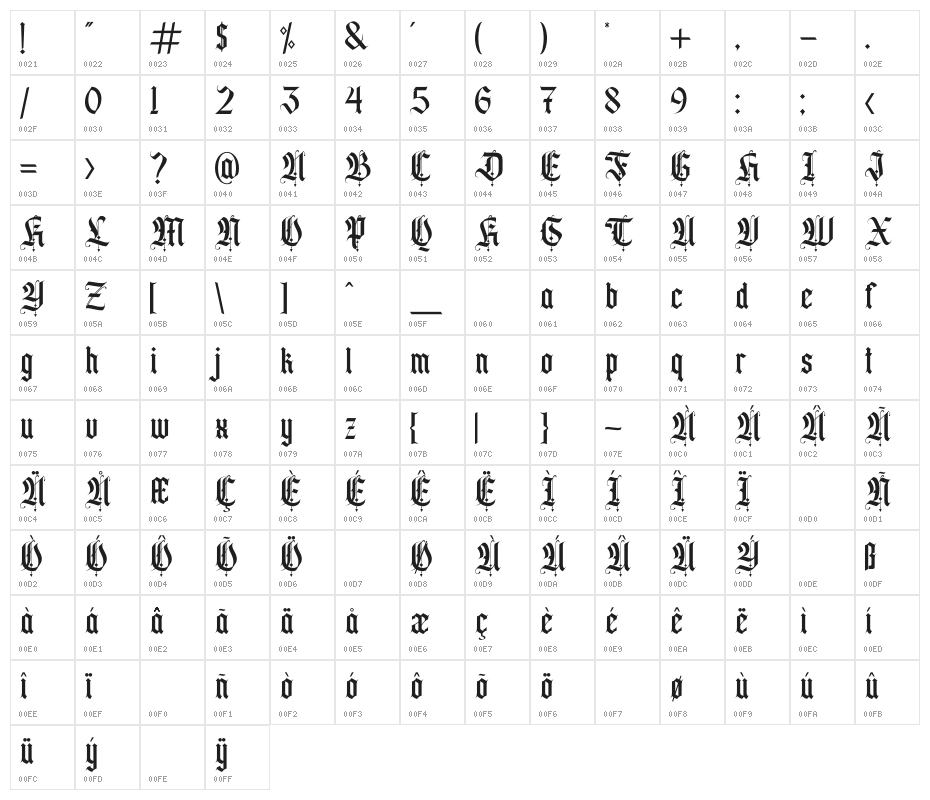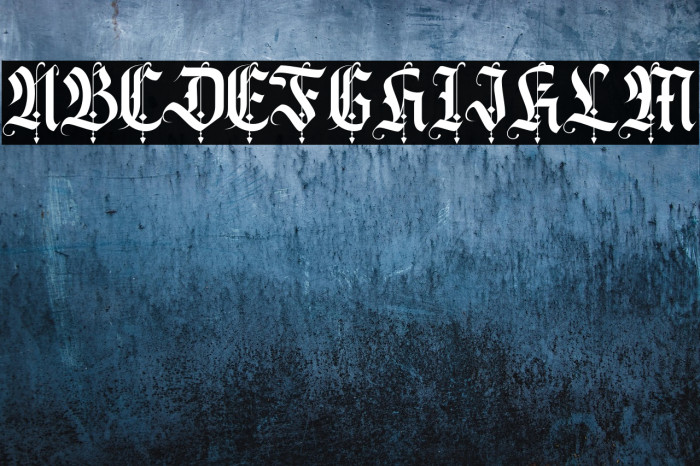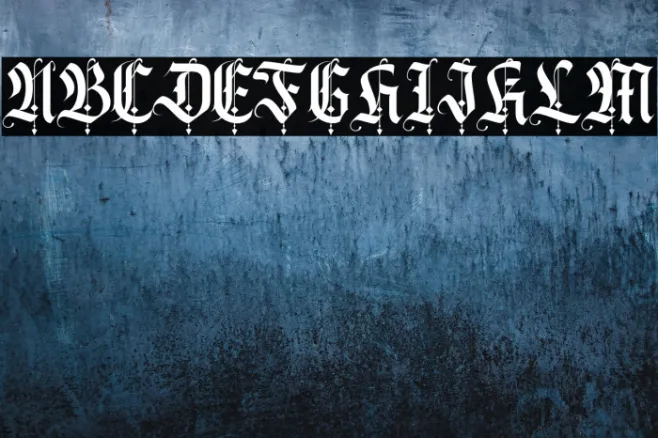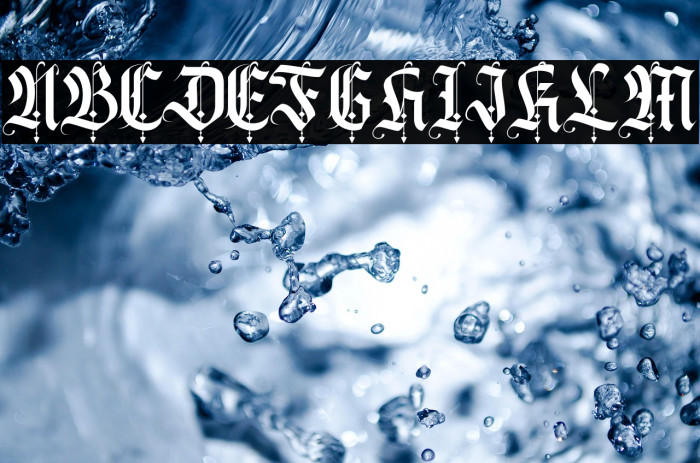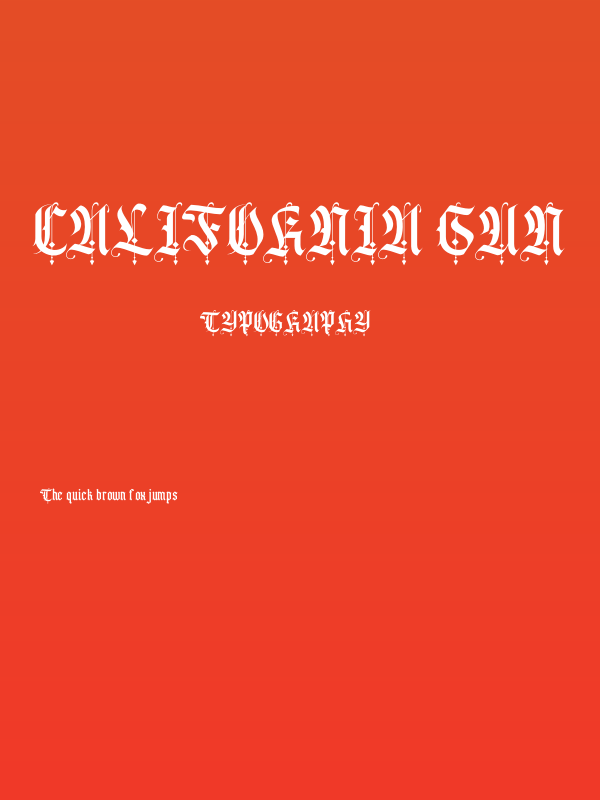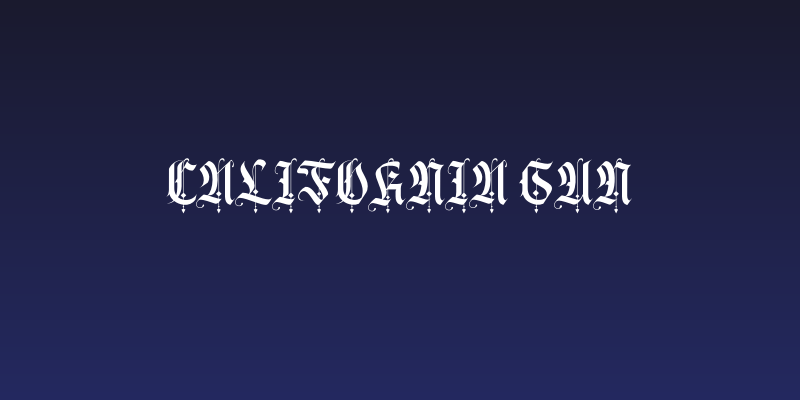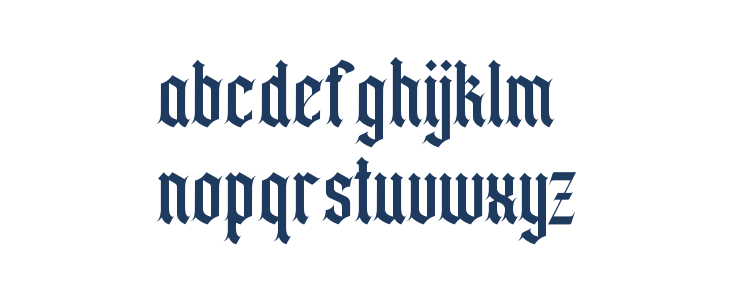
California sun Font
California sun Description
This font exhibits a classic blackletter style, characterized by its intricate and ornate design. The uppercase letters are adorned with decorative elements, giving them a medieval and gothic appearance. The lowercase letters maintain the traditional blackletter form, with sharp angles and a strong vertical emphasis. The numerals and special characters are consistent with the overall style, featuring bold strokes and elaborate details. This font's dramatic and historical aesthetic makes it suitable for projects that require a touch of elegance and tradition.